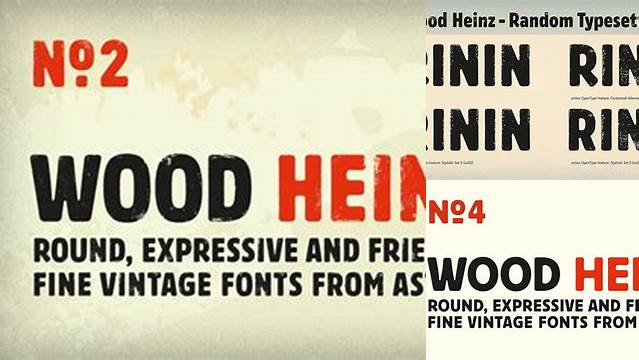
Wood Heinz No. 2 Font: Free Download & Design Guide
Hey everyone! Today, we're diving headfirst into the awesome world of fonts, and specifically, the Wood Heinz No. 2 font. This is a fantastic typeface that's totally free to download and use, making it a must-have for designers of all levels. We'll explore what makes this font so special, where you can snag it, and how you can use it to spice up your projects. So, if you're ready to give your designs a fresh look, stick around – this is for you!
What is Wood Heinz No. 2? Unleashing the Power of this Font
Let's start with the basics: Wood Heinz No. 2 is a display font, which means it's designed to grab attention. Think of it as the bold headline in a newspaper or the eye-catching title on a poster. It's not really the kind of font you'd use for a massive block of text because it is more suited for short, punchy words or phrases. This font style usually features a vintage or retro aesthetic, which can instantly add a unique and cool feel to your designs. It's the perfect choice when you want to make a statement and stand out from the crowd. One of the coolest things about Wood Heinz No. 2 is its versatility. Whether you're working on a logo, a website header, a social media post, or a print design, this font can fit right in. It's that adaptable. You'll find that it lends itself particularly well to projects that want to evoke a sense of nostalgia, such as those inspired by classic advertising, vintage branding, or even old-school movie posters. The typeface often has a somewhat distressed or textured look that adds a layer of authenticity and character. This is super important for creating a specific atmosphere. Also, this font often has a strong and bold appearance, helping the message you are trying to send be clear and impactful. You could say that it's a reliable font for getting your message across. The Wood Heinz No. 2 font typically features a full character set, meaning it includes all the standard letters, numbers, and punctuation marks you would need. But depending on the version, it may also include some alternate glyphs or special characters, further enhancing its versatility. The design of the font plays a huge role in its appeal. Wood Heinz No. 2 usually has a distinct style, often with a slightly condensed or elongated structure. It's also not uncommon to find variations with a slightly weathered or worn look, as if the letters have been around for a while. This design choice adds a sense of history and genuineness to your work. The free availability of Wood Heinz No. 2 is a huge advantage for designers. It opens up opportunities for experimentation and creative expression without the financial burden. This means that anyone, regardless of their budget, can access and use this font for their projects. When you decide to use the Wood Heinz No. 2 font for your designs, consider its role within your overall design. Think about how the font interacts with other elements, such as colors, images, and layout. Remember that the goal is to create a cohesive and visually appealing design, so choose your font in a way that supports your message and enhances the user experience.
Using Wood Heinz No. 2 in Your Designs: Tips and Tricks
Alright, let's talk about how to actually use Wood Heinz No. 2 in your designs. Once you've got the font installed, the fun begins! First, it is really important to experiment with it to see how it looks. You can see the font's potential and how it works with different text lengths or design elements. The best way to get started is to try it out on your projects and see if it works for you. When you're choosing your font, always think about what you want to convey. Display fonts, like Wood Heinz No. 2, are best for headlines, titles, and short phrases. They work great for getting attention. This font is perfect for things like logo designs or website headers. The font's vintage style works well with businesses, brands, or campaigns that want to create a retro vibe. A great trick is to pair Wood Heinz No. 2 with a more readable font for body text. This provides contrast and makes your designs easier to read. You can choose a sans-serif or a classic serif font for the body text. The key is to ensure your fonts have a contrast of style. Remember that Wood Heinz No. 2 is all about creating a statement. So, you could use it as a focal point in your design. This might mean placing it prominently on a poster, or using it to highlight a key message on a social media graphic. The choice is yours! Don't be afraid to play with color. Test the font with different color combinations to see how it looks. The font will work with almost any color combination. Consider how the font will look on different backgrounds. Consider using it over images. The key here is to make sure your font stands out from the background. The most important thing to take away from all of this is to embrace the font's unique style. Remember that this font is all about creating a statement, so play around with it and enjoy yourself. You can try adding effects to the font, such as shadows or outlines, to make it more eye-catching. You can also adjust the letter spacing or kerning to get the perfect look. Don't be afraid to experiment with different variations of the font to see what works best. As you work with Wood Heinz No. 2, pay attention to how it interacts with other elements in your design. This includes things like images, colors, and layout. Always keep in mind the goal of your design and the message you want to convey.
Conclusion: Unleash Your Creativity with Wood Heinz No. 2
So there you have it, guys! Wood Heinz No. 2 is a fantastic font that can add a unique, vintage touch to all your projects. From grabbing the font and understanding the usage, we've covered everything you need to know. Remember to download it from a reliable source, check the license, and have fun experimenting with it in your designs. Whether you're a seasoned designer or just starting out, this font is a great tool to have in your arsenal. So go ahead, download Wood Heinz No. 2, and let your creativity run wild! Happy designing!